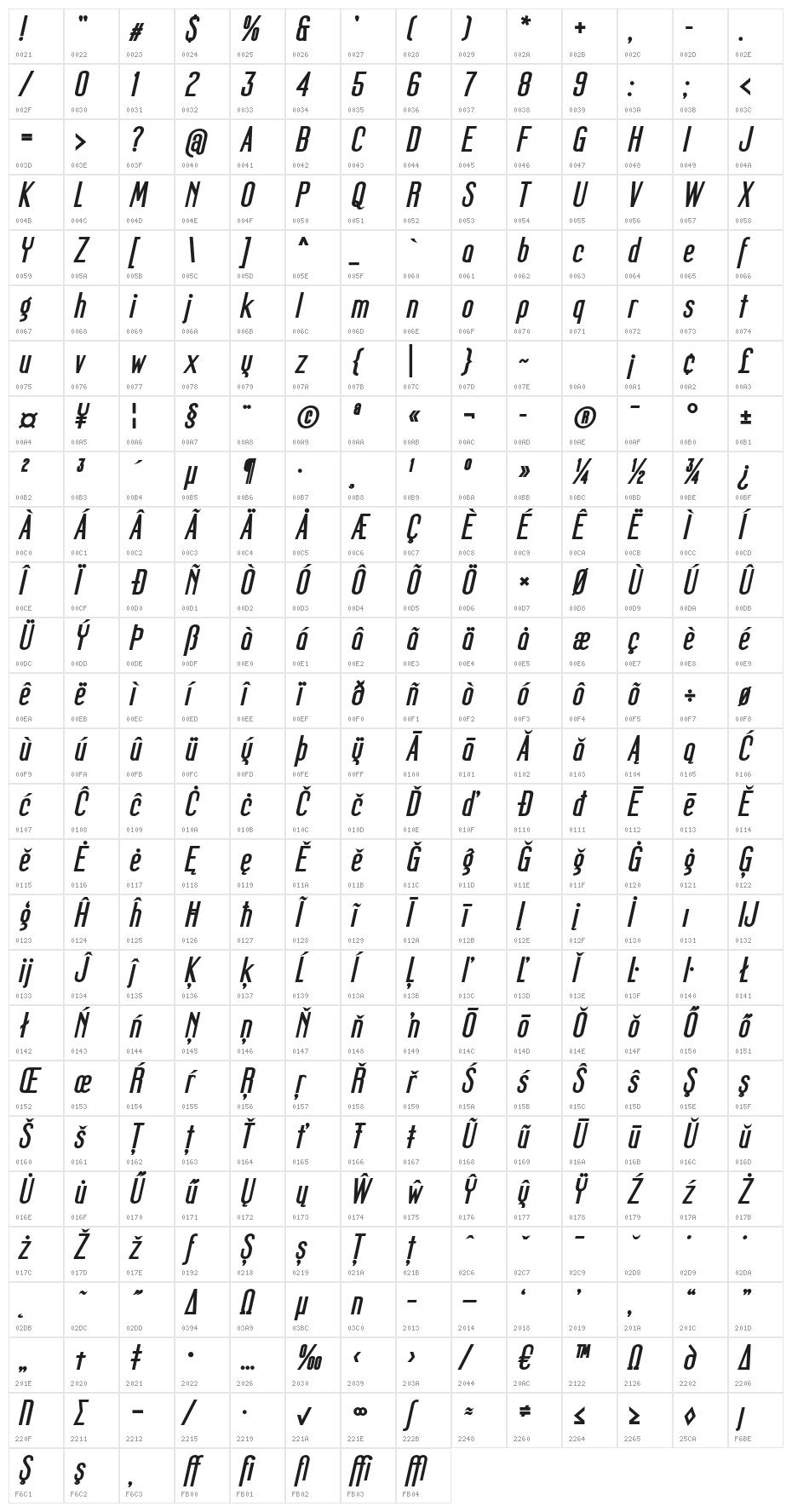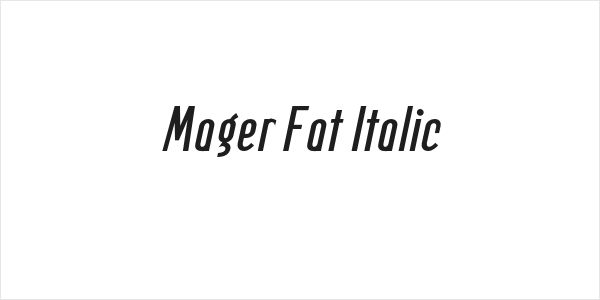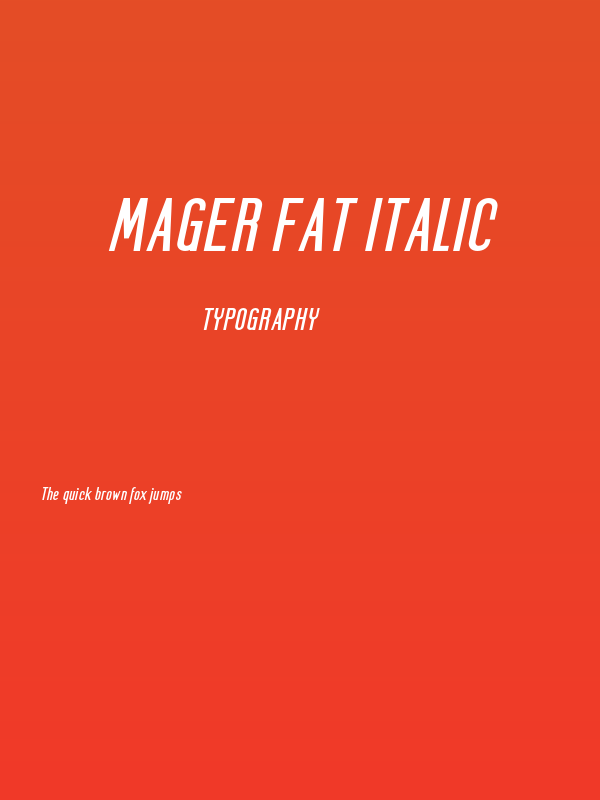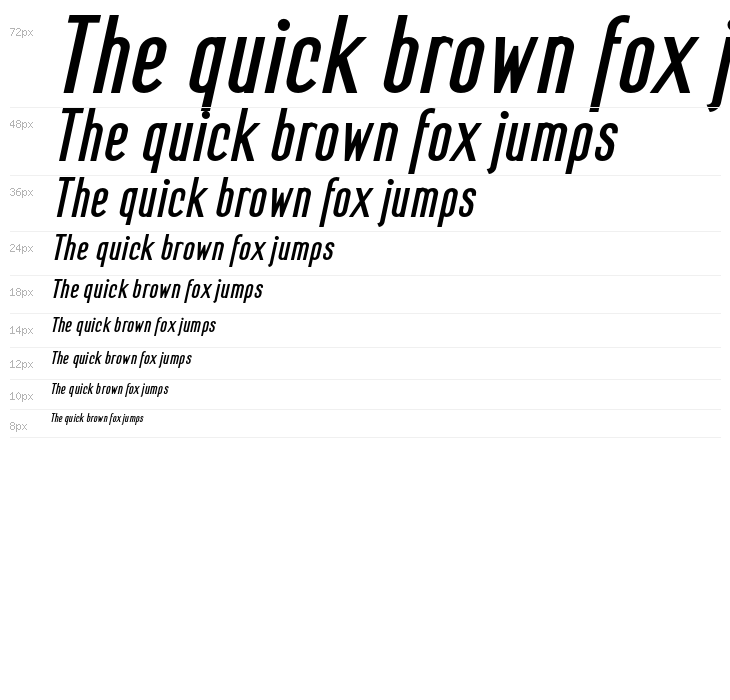
Mager Fat Italic Font
Mager Fat Italic Description
This font features a bold and italicized style, characterized by its strong, slanted letters that convey a sense of movement and dynamism. The uppercase and lowercase letters are designed with a consistent stroke width, providing a uniform appearance. The numerals and special characters maintain the same bold and italicized style, ensuring cohesion across all elements. The font's design is modern and sleek, making it suitable for projects that require a contemporary and assertive look.
| Proposed Projects | Ideal for branding, advertising, headlines, and any project that requires a bold and modern aesthetic. |